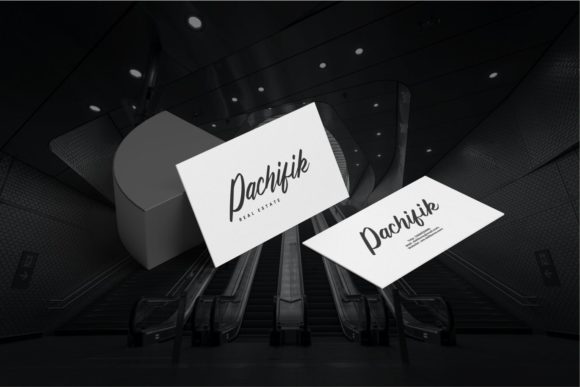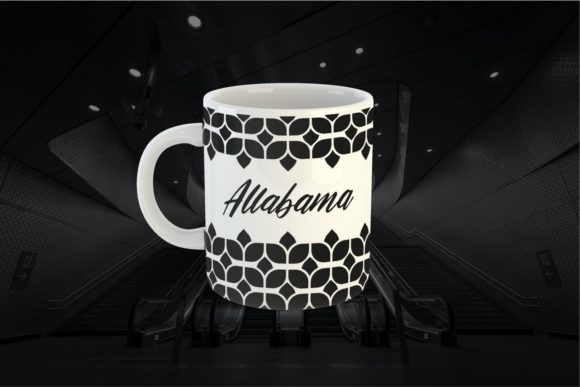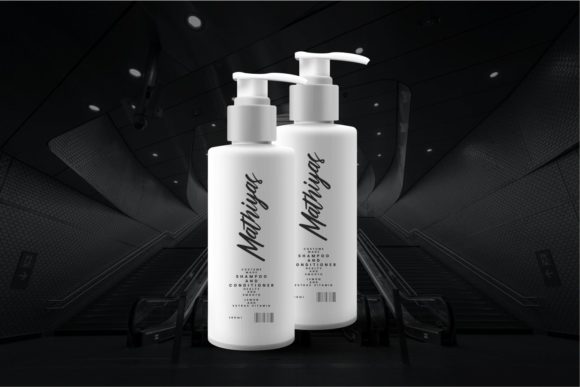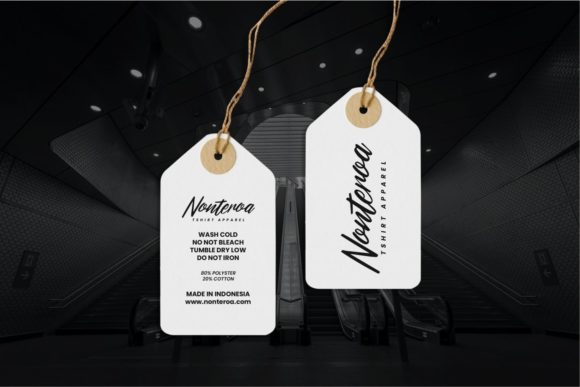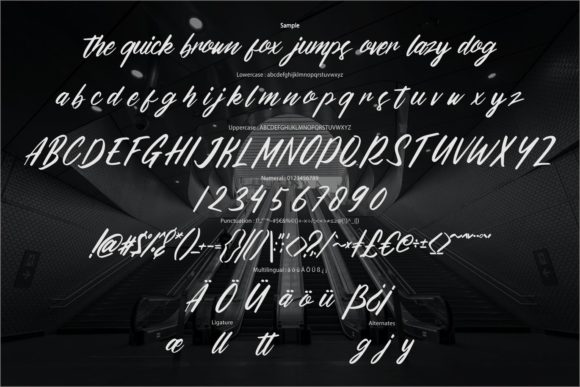
Introduction to Donttown Font
Donttown is a well balanced and delicate script font.
Dainty and joyful, this font will be ideal for writing wedding invitations, cards or any other design that may need a romantic, personalized touch .
Key Features of Donttown Font